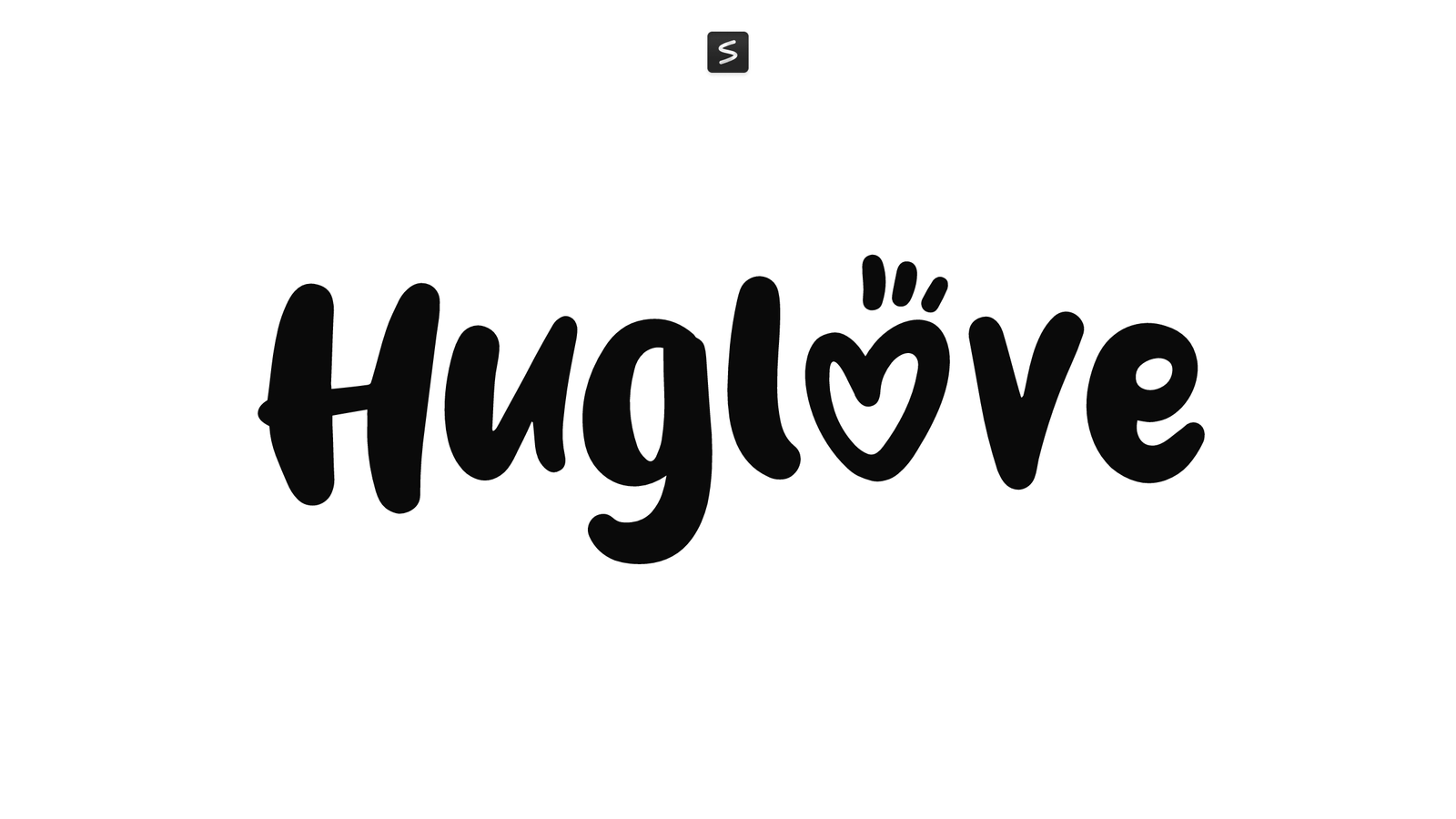
Huglove is a rounded handwriting font by Khurasan™ with a warm, informal character. Its bold strokes and bouncy letterforms give text an approachable, hand-drawn quality that works well in casual headlines, social media graphics, or friendly branding.
The consistent weight and rounded terminals make Huglove readable across different sizes without losing personality. It sits somewhere between a sketch and a finished letter, carrying enough polish for professional use while keeping that human, conversational feel that makes informal designs feel genuine.
Use it for greeting cards, poster headlines, packaging labels, stickers, indie zines, or any project where warmth and directness matter more than formality. Huglove suits designs that aim to feel personal rather than corporate.